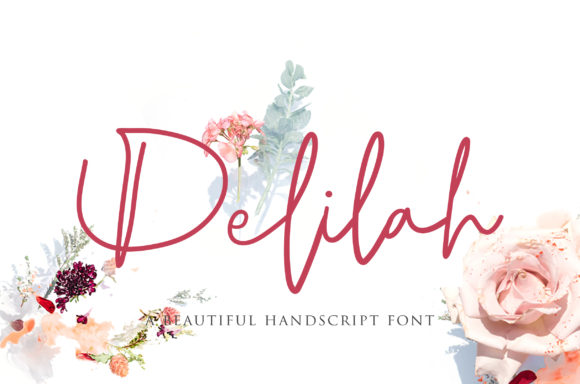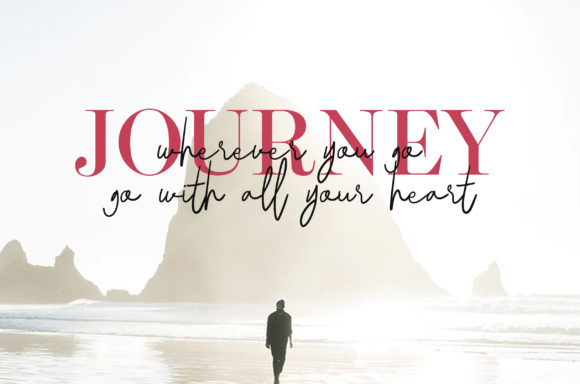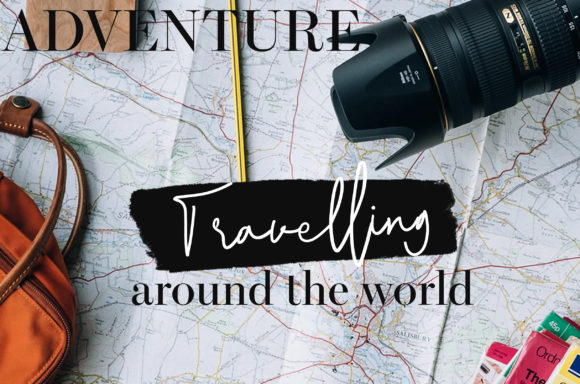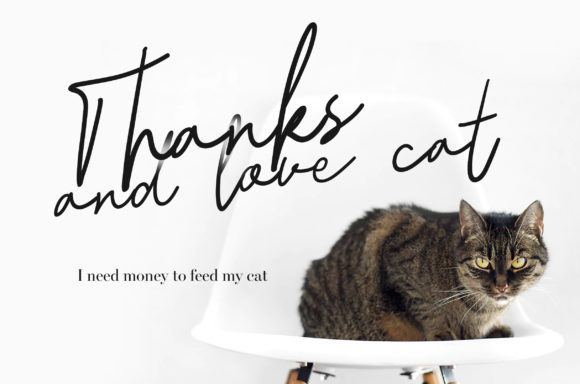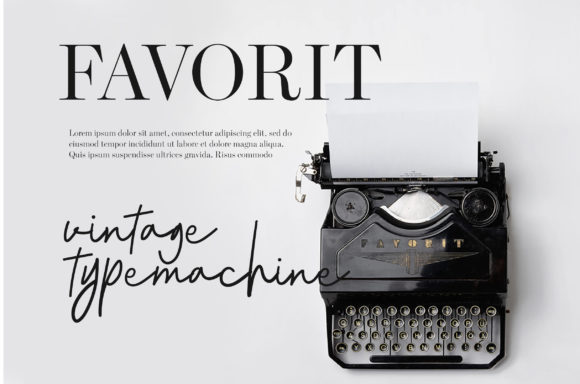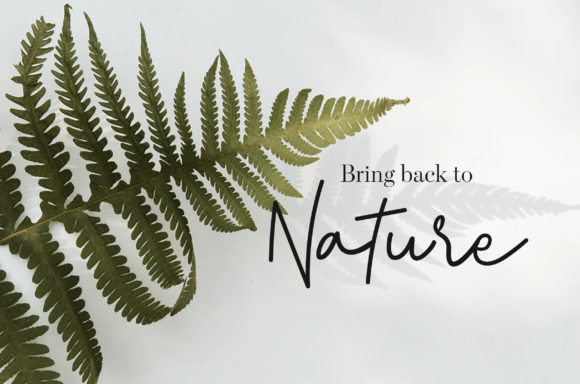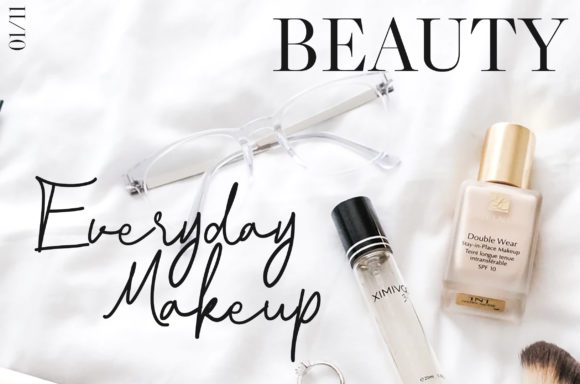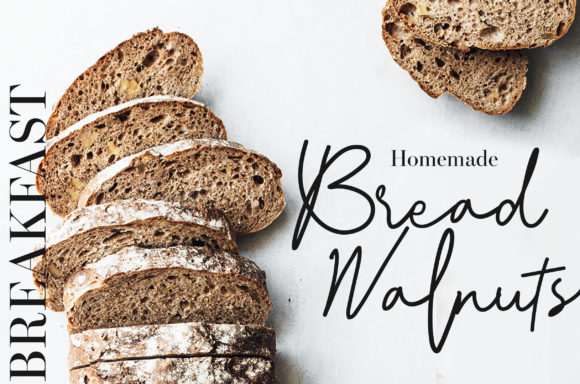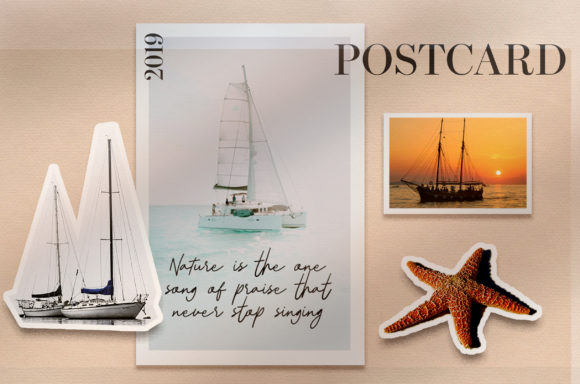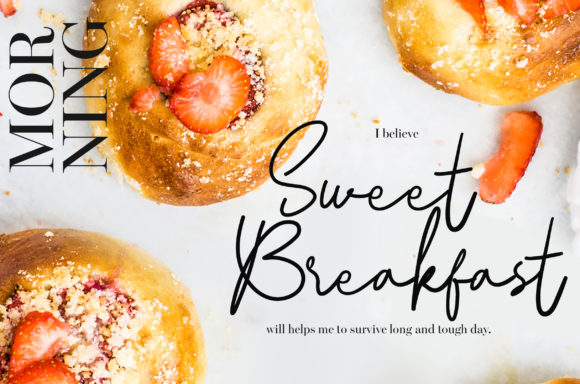
HomeScript FontsDelilah Font Script Fonts Delilah Font FacebookXPinterestWhatsApp Delilah Font Poster 2 Delilah Font Poster 3 Delilah Font Poster 4 Delilah Font Poster 5 Delilah Font Poster 6 Delilah Font Poster 7 Delilah Font Poster 8 Delilah Font Poster 9 Delilah Font Poster 10 Delilah Font Poster 11 Delilah Font Poster 12 About Delilah Font Delilah is a stunning script font that will turn any creative idea into a true piece of art. DOWNLOAD ON CREATIVE FABRICAThis font is sold and delivered by Creative Fabrica. Font Canyon may earn a commission if you buy through this link. People also explored Estakn Font Samanea Font Befalow Font Millenial Script Font Lightscript Font Burgundy Blush Script Font Cloud Mine Font Amstallova Font Constellations Font 361 0 TagsDelilah Font Previous articleAstone Blood FontNext articleManthek Font LEAVE A REPLY Cancel reply Comment: Please enter your comment! Name:* Please enter your name here Email:* You have entered an incorrect email address! Please enter your email address here Website: Save my name, email, and website in this browser for the next time I comment. Personal Use Free Arnitta Callina Personal Use Free Read more about this font Shkoder 1989 Personal Use Free Read more about this font Farmhouse Christmas Personal Use Free Read more about this font Black Friday Personal Use Free Read more about this font BLOG Elegant Wedding Invitation Fonts – Handwritten & Script Fonts Elegant Wedding Invitation Fonts Your wedding day is one of the most important moments of your life, and every detail matters—including your invitation design. Our... Using Fonts in Digital Marketing: Tips to Strengthen Your Brand Identity Top 7 Google Fonts Alternatives for Faster and Privacy-Friendly Web Design (2025) Modern Sans-Serif Fonts That Brands Love in 2025